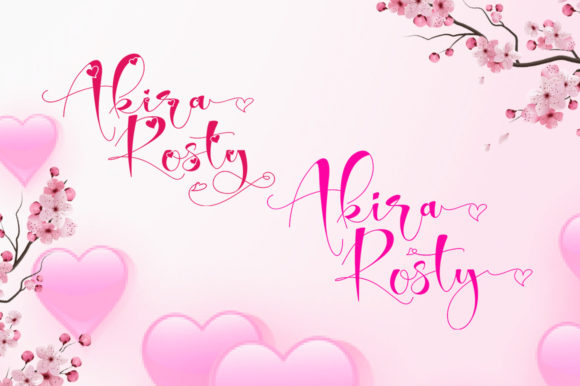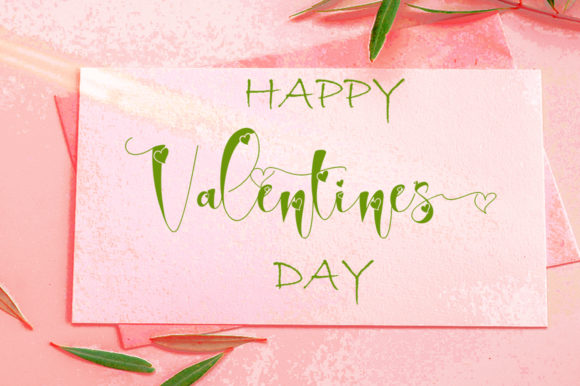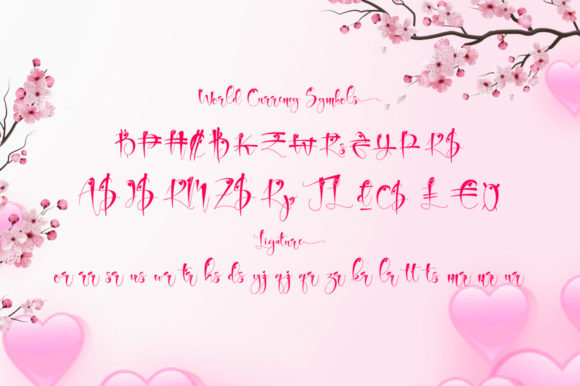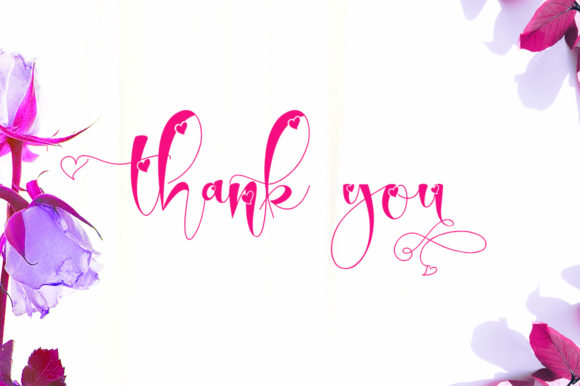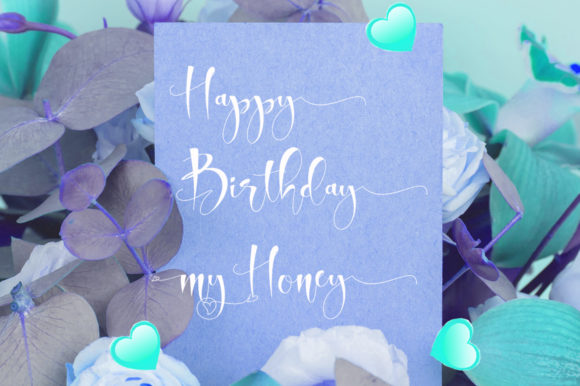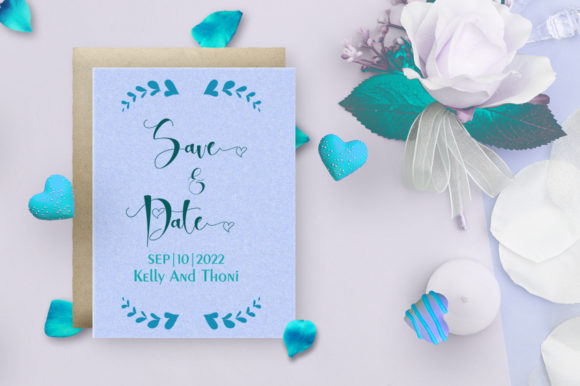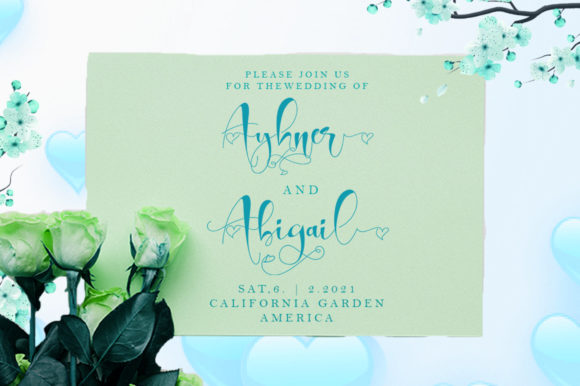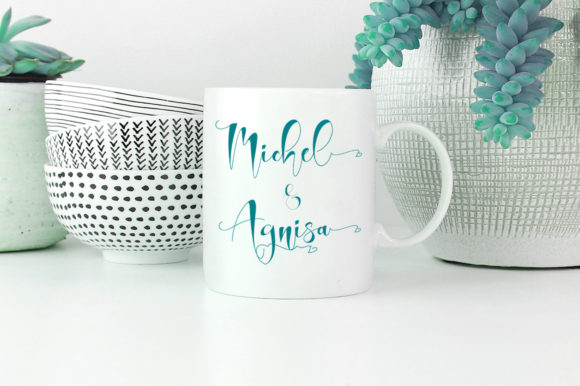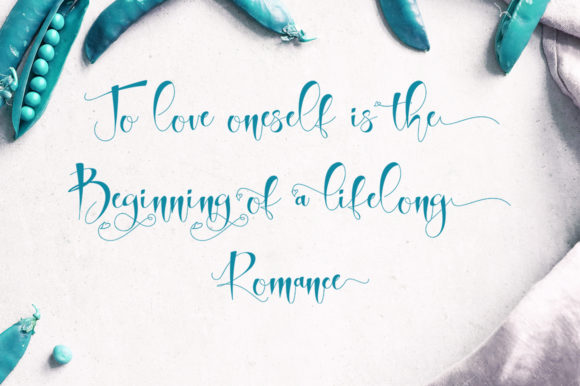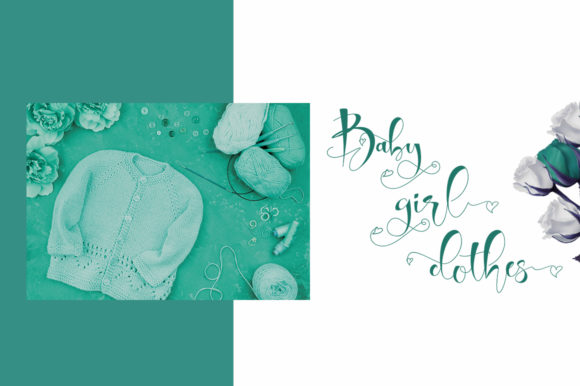
Akira Rosty Font
Introducing Akira Rosty, a unique handwriting font that combines modern shapes with an incredibly natural style. Whether you’re using it for crafting, digital design, presentations, or creating greeting cards, Akira Rosty is the perfect choice.
Akira Rosty’s unique handwriting design sets it apart as a font that captures attention and adds a personal touch to your projects. Each letter carries the organic and fluid strokes of natural handwriting, creating a sense of authenticity and charm. This combination of modern shapes and natural style gives Akira Rosty a distinct character that enhances the visual appeal of your designs.
The PUA encoding of Akira Rosty allows for easy access to all of its glyphs and swashes, providing flexibility and customization options. This feature enables you to explore different design possibilities and create unique compositions that suit your specific needs. With Akira Rosty, you can effortlessly add special characters and stylistic alternates to your designs.
Akira Rosty’s versatility makes it suitable for a wide range of applications. Whether you’re working on digital graphics, presentations, crafting projects, or creating greeting cards, Akira Rosty brings a natural and modern touch that elevates the overall aesthetics. Its unique handwriting style adds a personal and authentic feel to your designs, making them stand out.
In addition to its visual appeal, Akira Rosty’s PUA encoding ensures ease of use and accessibility. With just a few clicks, you can access all of the font’s glyphs and swashes, allowing for effortless customization and creative freedom. This feature adds versatility to your designs, enabling you to create compositions that are truly unique.
In summary, Akira Rosty is a unique handwriting font with a modern shape and a natural style. Whether you’re working on crafting, digital design, presentations, or greeting cards, Akira Rosty is the perfect choice. Its PUA encoding provides easy access to all of its glyphs and swashes, allowing for effortless customization. Embrace Akira Rosty and let its distinctive character enhance the visual appeal of your designs, adding a personal and authentic touch.